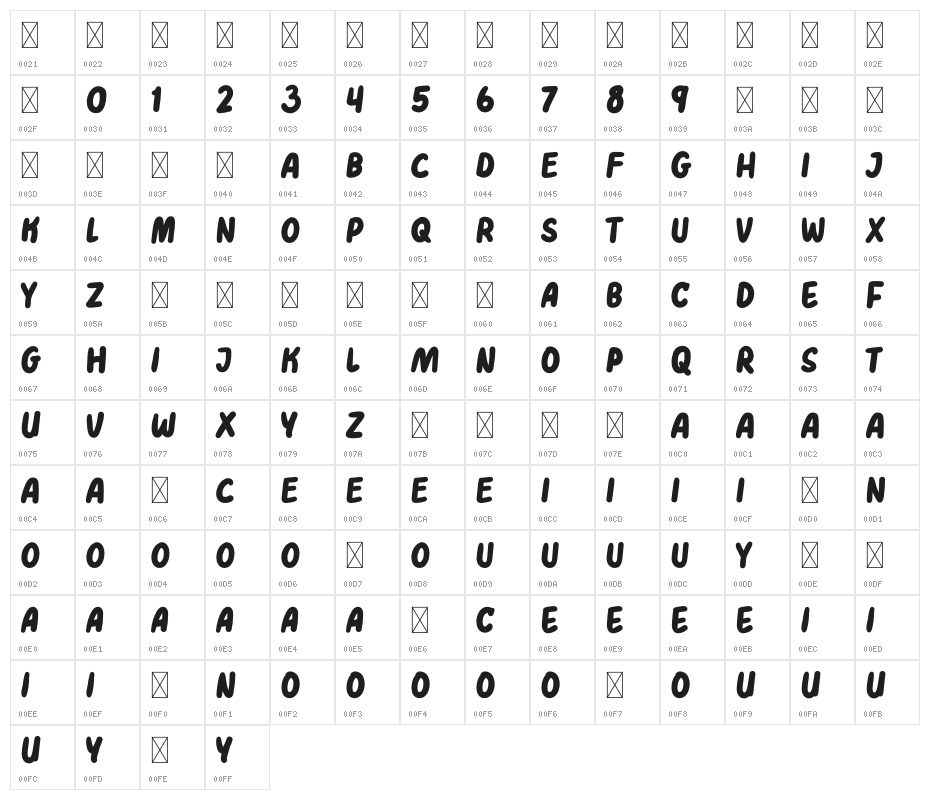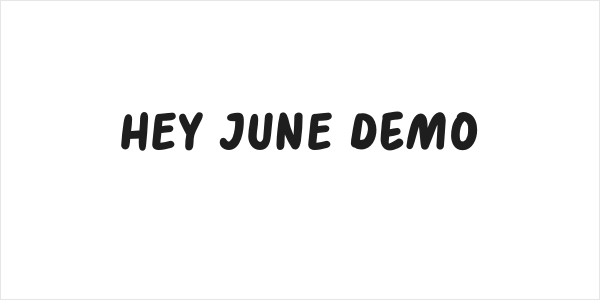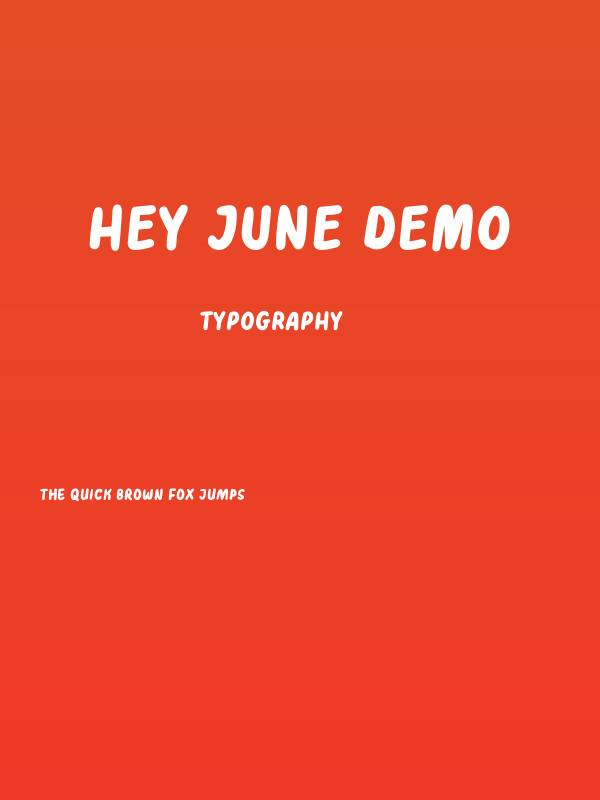
HEY JUNE Demo Font
HEY JUNE Demo Description
This font features a bold and playful style with rounded edges and a slightly italicized appearance. The characters are thick and have a consistent stroke width, giving them a strong presence. The uppercase and lowercase letters maintain a uniform style, with a smooth and flowing design that adds a sense of movement. The numbers are equally bold and rounded, matching the overall aesthetic of the letters. This font lacks special characters, focusing on a clean and straightforward presentation. Its design is modern and friendly, making it suitable for various creative applications.
| Proposed Projects | Ideal for children's books, playful branding, casual invitations, and social media graphics. |